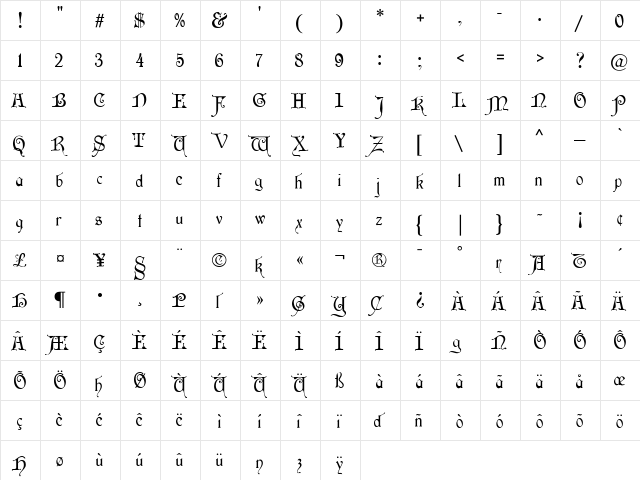
WishMF Regular
Design Context for WishMF Typeface
WishMF is a composed and adaptable typeface that performs quietly and consistently across a wide range of design contexts.
Pro Tip: Pair WishMF with a font of contrasting weight or personality to build a more expressive typographic hierarchy.